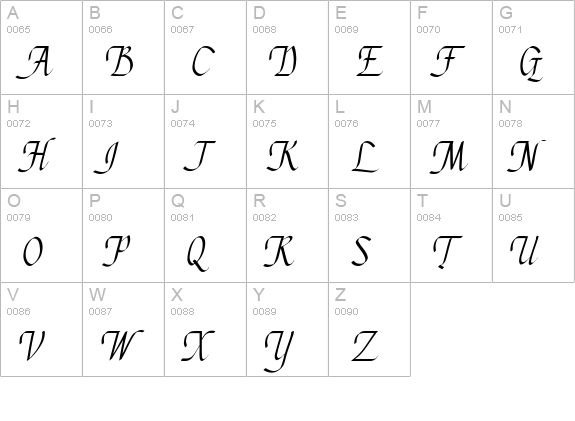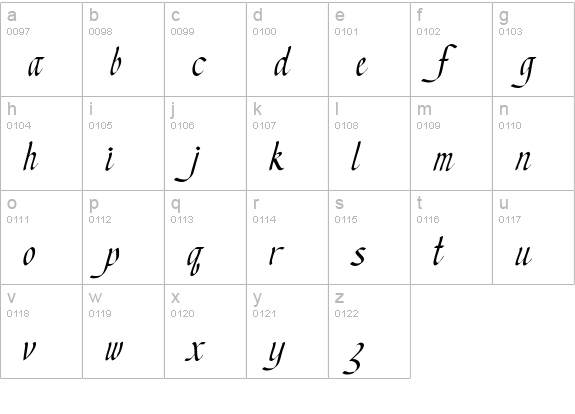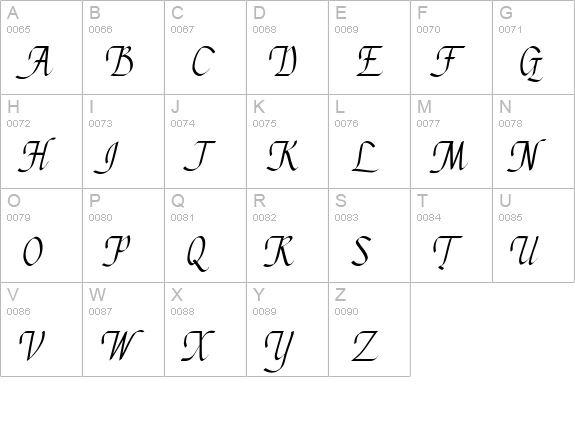
Chancery Cursive - DGL Italic Font Details
Chancery Cursive - DGL Italic is a distinctive, italic variant in the Chancery typeface family \xE2\x80\x94 well suited to design and typography projects.
Chancery Cursive - DGL Italic font is an elegant and sophisticated typeface that exudes class and refinement. Its graceful curves and delicate strokes make it perfect for projects that require a touch of sophistication and style. The italic style adds a sense of fluidity and movement, making it ideal for invitations, wedding stationery, and other formal designs. What makes Chancery Cursive - DGL Italic font even more appealing is that it is available for free download at FontsMarket.com. This means that you can easily access this beautiful font without any cost, making it a valuable addition to your font collection. Whether you're a designer looking for a versatile and stylish typeface or someone in need of a font for a special project, Chancery Cursive - DGL Italic font is sure to impress with its timeless beauty and effortless charm. Download it today and elevate your designs with this stunning typeface.